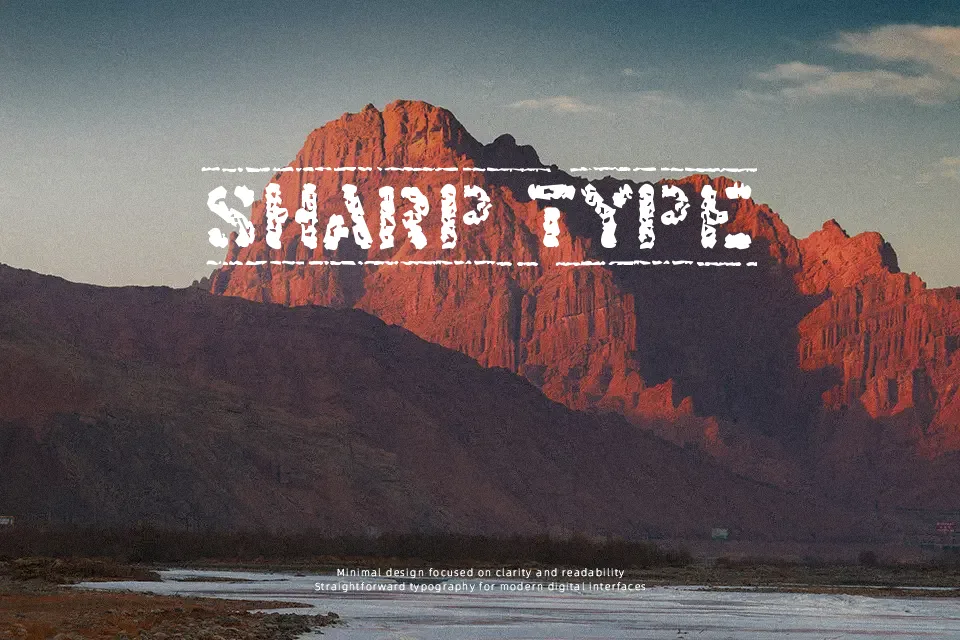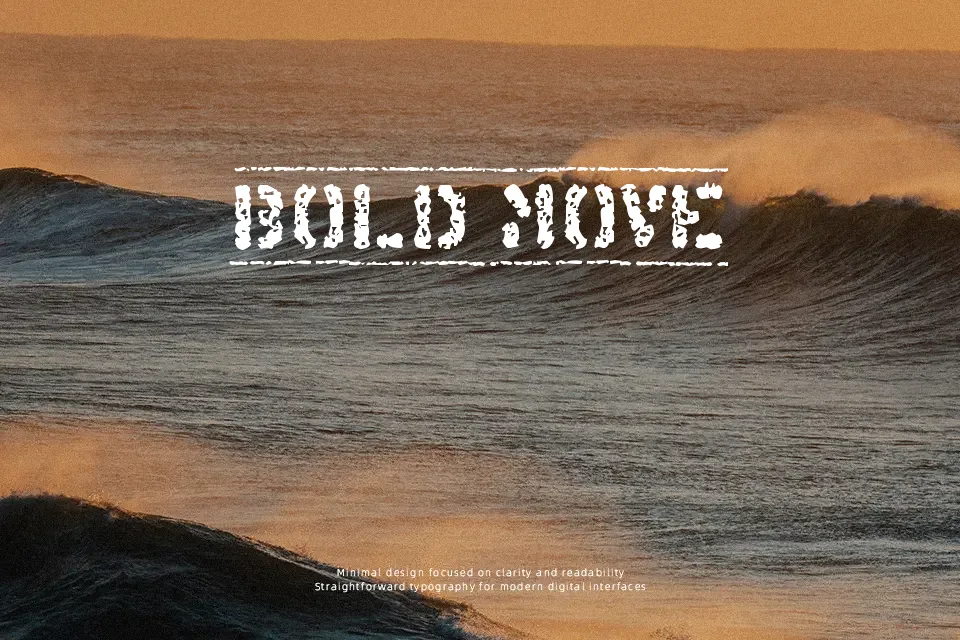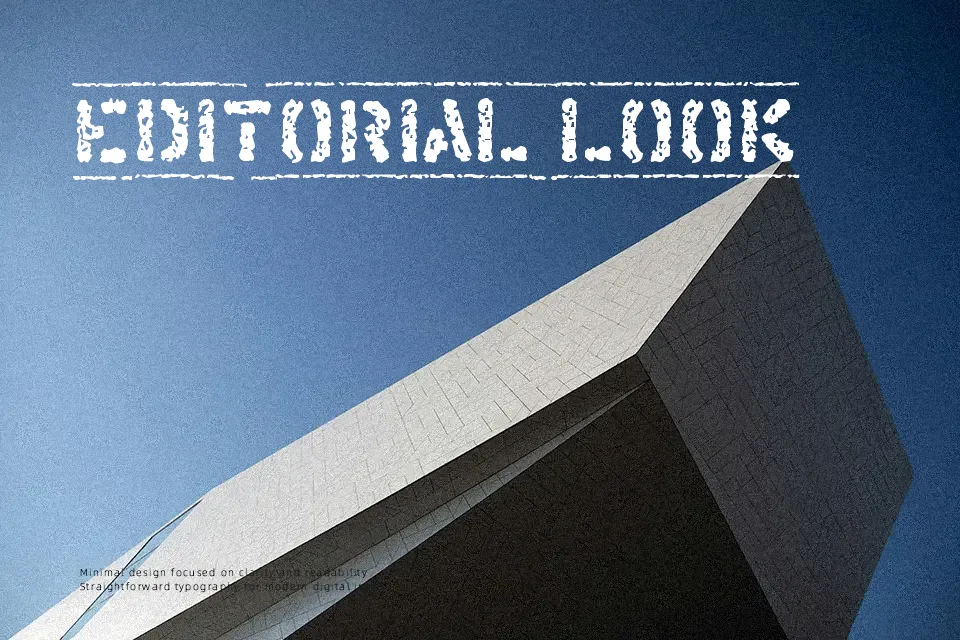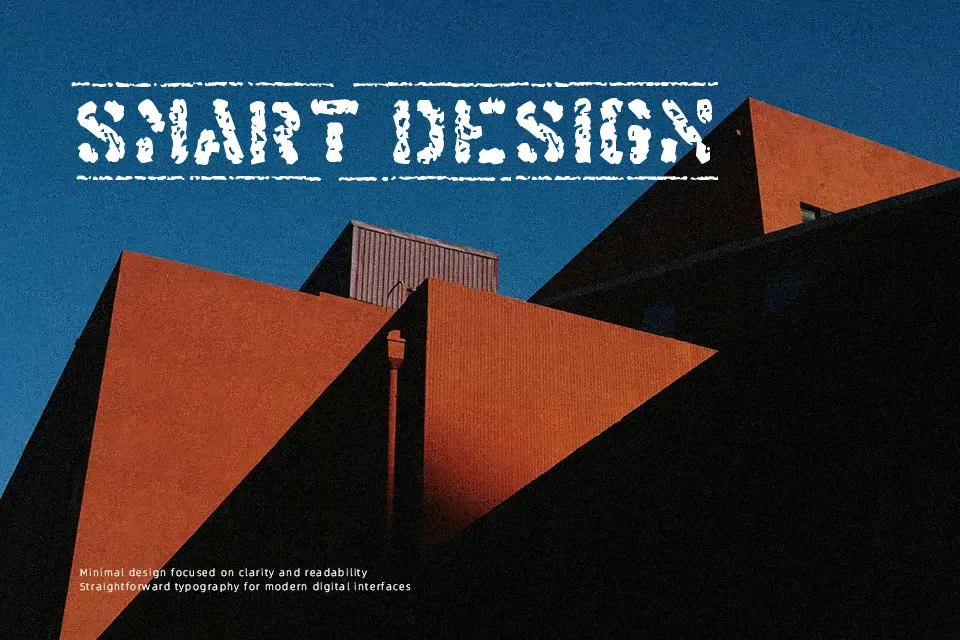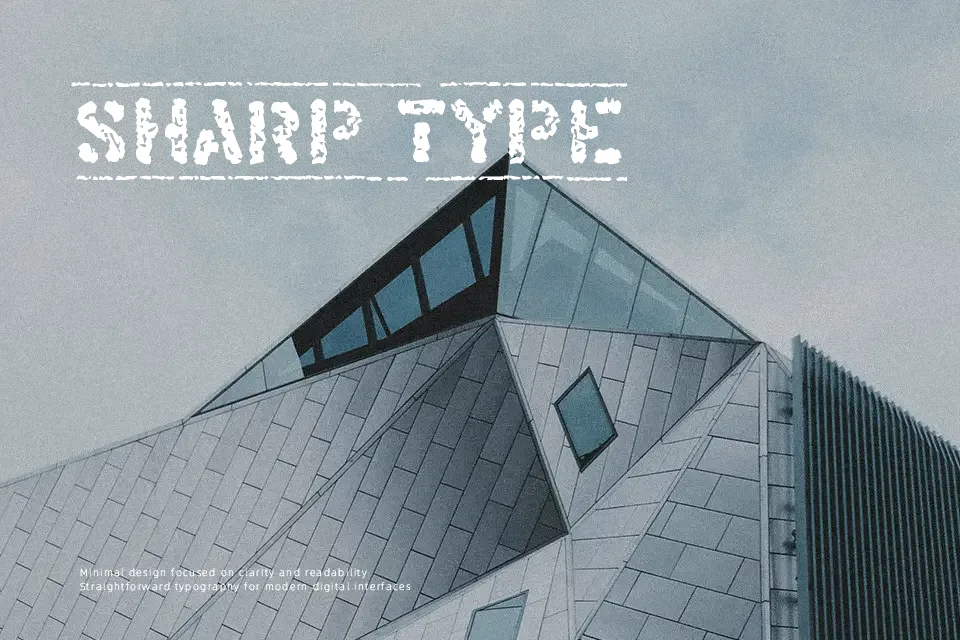
Offshore Banking Business Font
Designed by Vic Fieger
Offshore Banking Business Font uses heavy stencil letterforms interrupted by rough, chipped gaps that give each character a weathered appearance. The strokes are broadly consistent, while the compact, squared proportions create a forceful rhythm in uppercase display settings. Spacing remains workable for short lines, although the damaged details make smaller text harder to resolve. It is most effective in large headlines, labels, and graphics that benefit from an industrial or military-inspired surface. The strong silhouettes hold attention from a distance, but continuous reading becomes tiring when the type is set densely or at reduced sizes.
Best For: military-style posters,industrial signage,apparel graphics,game title screens
Perfect for advertising, gaming, and headline, with a bold and decorative style.